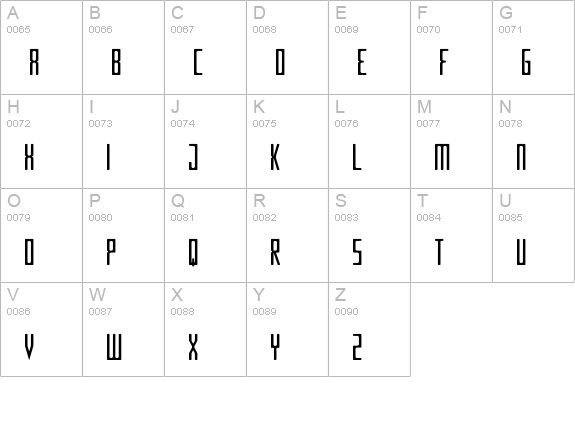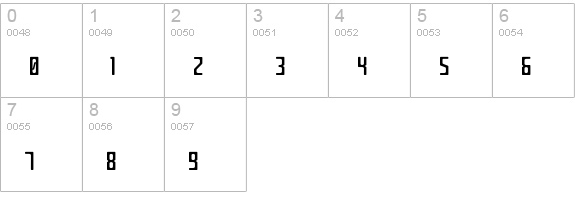
CriminalNarrow Font Details
CriminalNarrow font is a sleek and modern typeface that exudes a sense of mystery and intrigue. With its sharp edges and narrow letterforms, this font is perfect for creating a bold and edgy look in your designs. Whether you're working on a poster, logo, or website, CriminalNarrow font will add a touch of sophistication and style. What's even better is that CriminalNarrow font is available for free download at FontsMarket.com. So why wait? Add this dynamic font to your collection today and elevate your design projects to the next level!